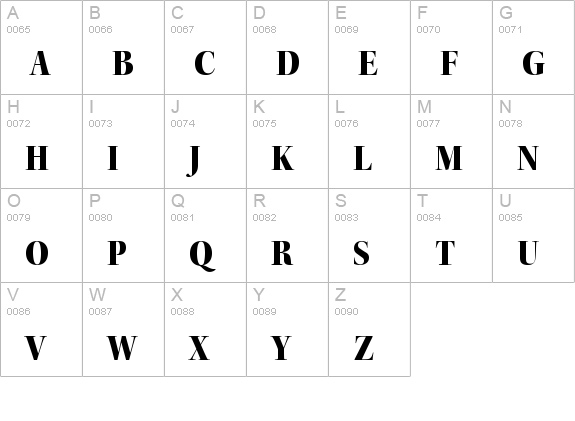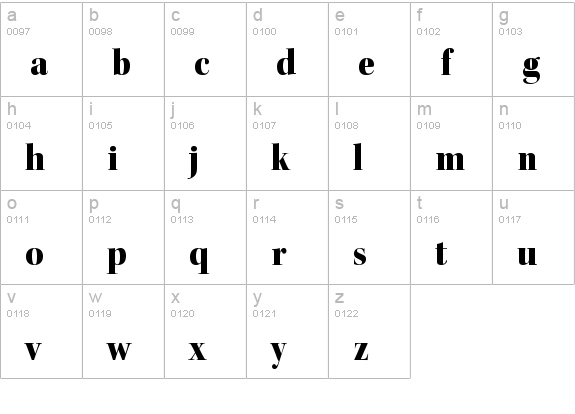
Kepler Std Black Semicondensed Display Font Details
Kepler Std Black Semicondensed Display is a maximum-weight, dramatic variant in the Kepler typeface family \xE2\x80\x94 well suited to maximum-impact headlines, posters, and packaging.
Introducing Kepler Std Black Semicondensed Display font, a visually striking and versatile typeface that is sure to make an impact. Designed with meticulous attention to detail, this font boasts a bold and condensed design, perfect for capturing attention and creating a strong visual presence. With its clean lines and modern aesthetic, Kepler Std Black Semicondensed Display font exudes confidence and professionalism, making it ideal for a wide range of design projects. Whether you're creating eye-catching headlines, impactful posters, or striking branding materials, this font will elevate your designs to new heights. One of the standout features of Kepler Std Black Semicondensed Display font is its versatility. It can seamlessly adapt to both digital and print mediums, ensuring that your message remains consistent across all platforms. Its bold weight and condensed letterforms make it highly legible even at smaller sizes, making it suitable for various applications. And the best part? Kepler Std Black Semicondensed Display font is available for free download at FontsMarket.com. That's right, you can enhance your design projects without spending a dime. FontsMarket.com is a trusted source for high-quality fonts, and their extensive library offers a wide range of options for all your typographic needs. So why wait? Download Kepler Std Black Semicondensed Display font today and take your designs to the next level. Whether you're a professional designer or a hobbyist, this font will surely become a valuable addition to your typographic arsenal. Embrace its boldness, embrace its versatility, and let your creativity shine with Kepler Std Black Semicondensed Display font.